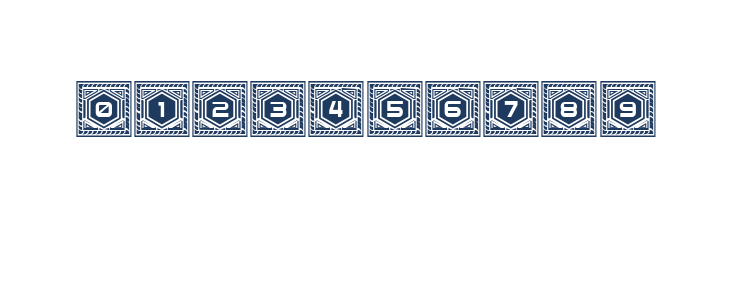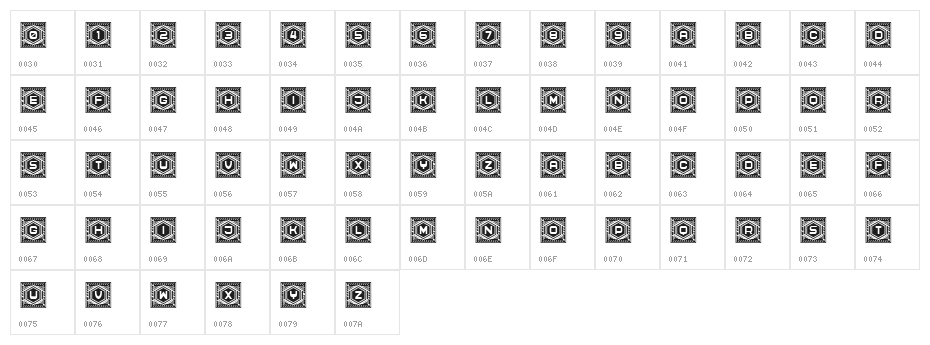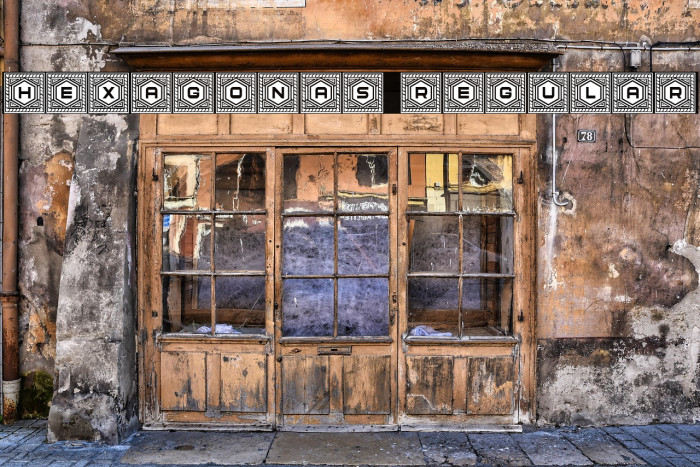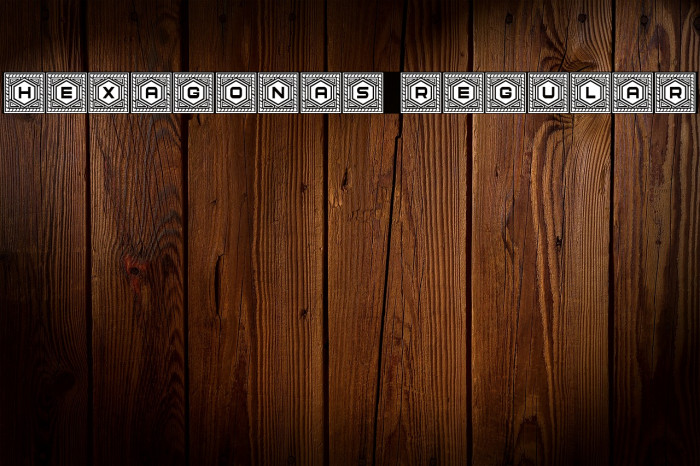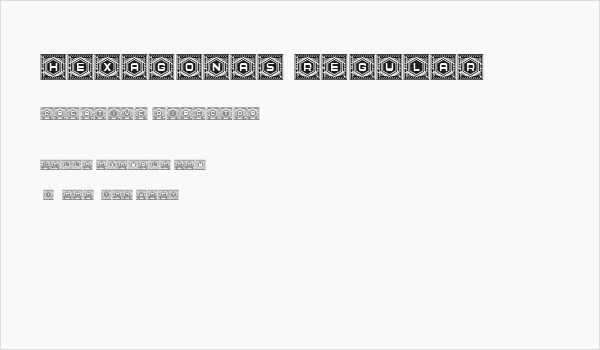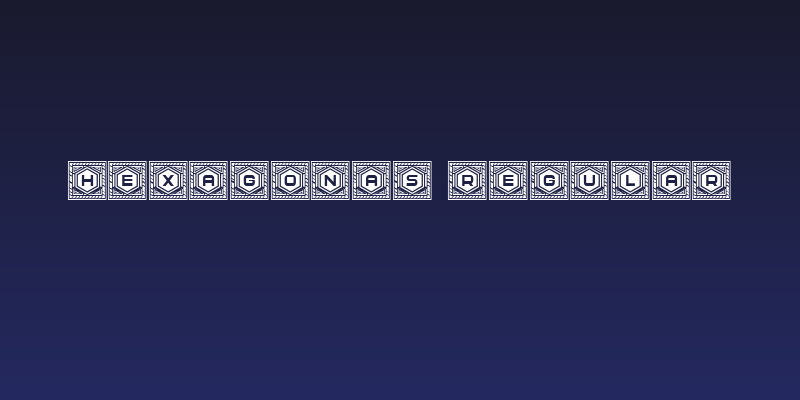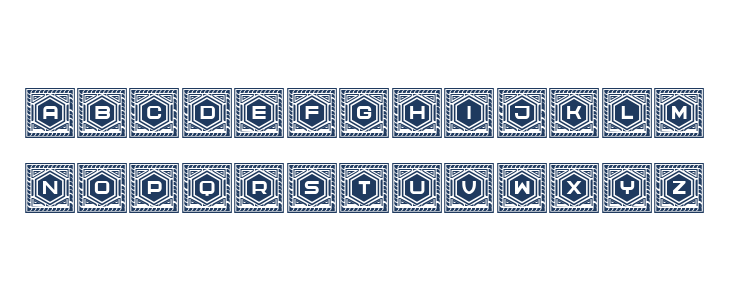
Hexagonas Regular Font
Hexagonas Regular Description
This font features a unique geometric design, with each character enclosed within a hexagonal frame. The letters and numbers are bold and prominently displayed, creating a striking visual impact. The intricate patterns within the hexagons add a decorative element, making it suitable for eye-catching designs. The font's style is reminiscent of modern digital aesthetics, with a touch of futuristic flair. The consistent use of hexagonal shapes provides a cohesive and structured appearance, making it ideal for projects that require a strong visual identity.